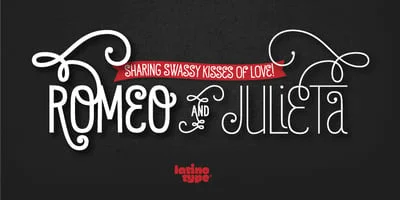
Romeo Font
Romeo Font is perfect for romantic wedding invitations, classical theater productions, Shakespearean festival materials, Italian restaurant branding, romantic poetry collections, love letter templates, Valentine's Day campaigns, and passionate artistic expressions. This romantic typeface brings timeless love and poetic elegance to any design project celebrating eternal romance and the passionate beauty of classic literary love stories.
What makes Romeo Font exciting is its exquisite embodiment of romantic passion combined with classical literary elegance that perfectly captures the timeless beauty and eternal devotion of Shakespeare's most famous lover and the enduring power of romantic literature. The graceful letterforms feature passionate curves and poetic proportions that create an unmistakably romantic appearance. Each character speaks with lover's eloquence, making it ideal for brands that celebrate romantic love, classical literature, and the timeless beauty of passionate artistic expression.
The Romeo Font family typically includes regular and italic weights with complete uppercase and lowercase letters, numbers, punctuation marks, and romantic symbols. Many versions feature additional classical decorative elements, literary motifs, and romantic symbols that enhance the passionate aesthetic and provide creative flexibility for romantic and theatrical design applications.
Whether you're developing romantic entertainment brands or creating classical literary materials, Romeo Font offers unmatched romantic authority and literary sophistication. This passionate typography choice transforms ordinary text into love letters that resonate with audiences appreciating romantic literature and passionate expression. The font's elegant construction ensures exceptional performance across romantic applications while maintaining its distinctive lover's character that makes every design project feel like a balcony scene where eternal love is declared with poetic beauty and passionate devotion that transcends time and speaks to every heart that has ever known true love.